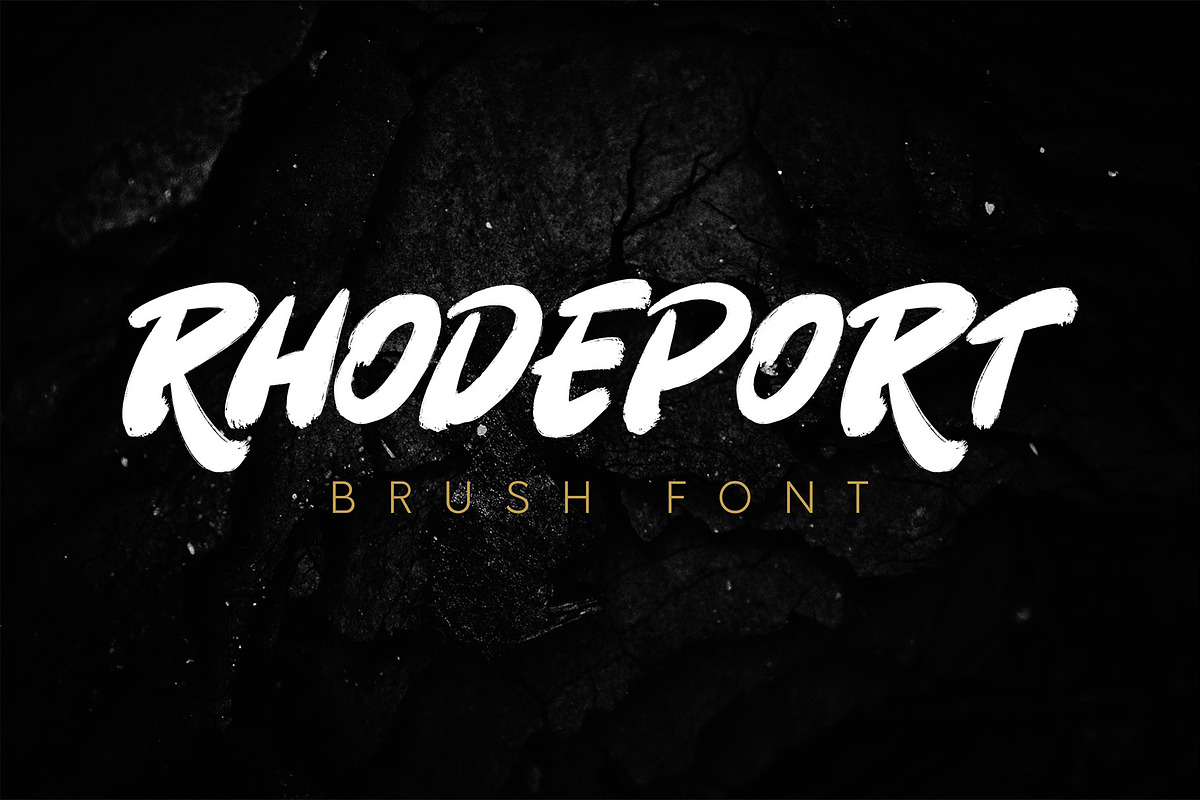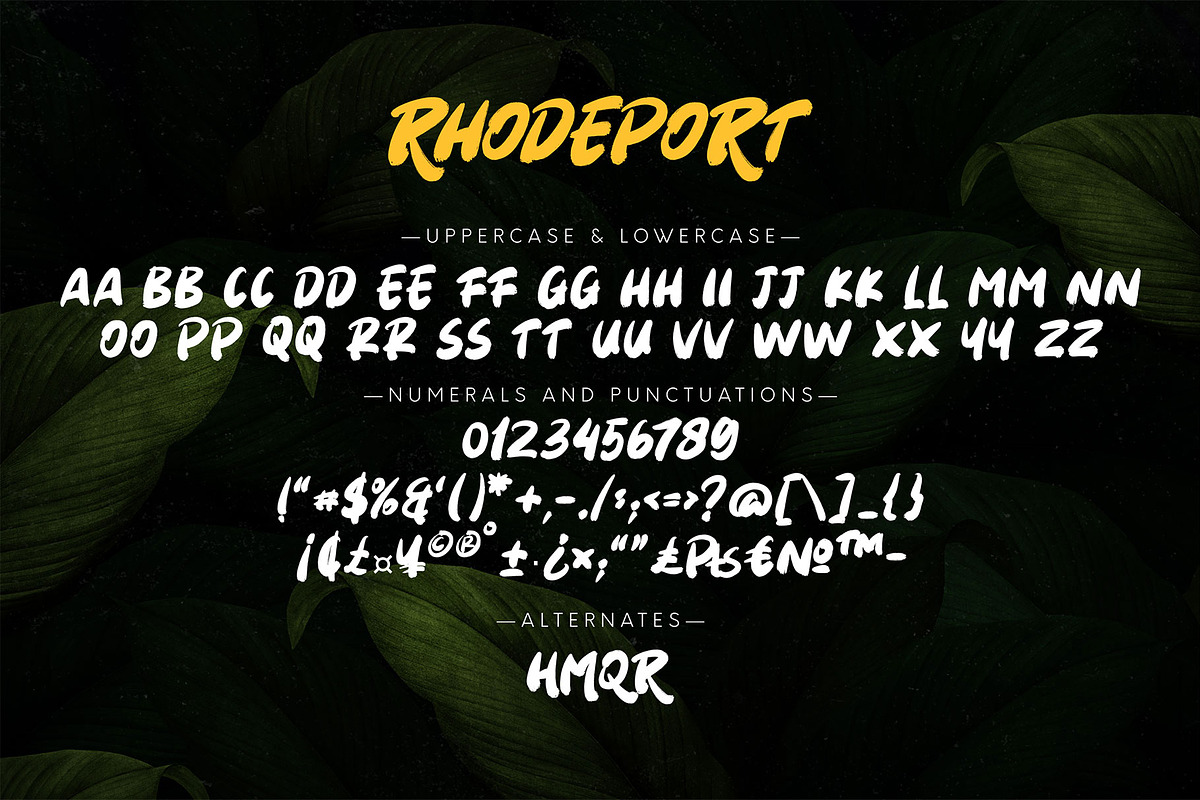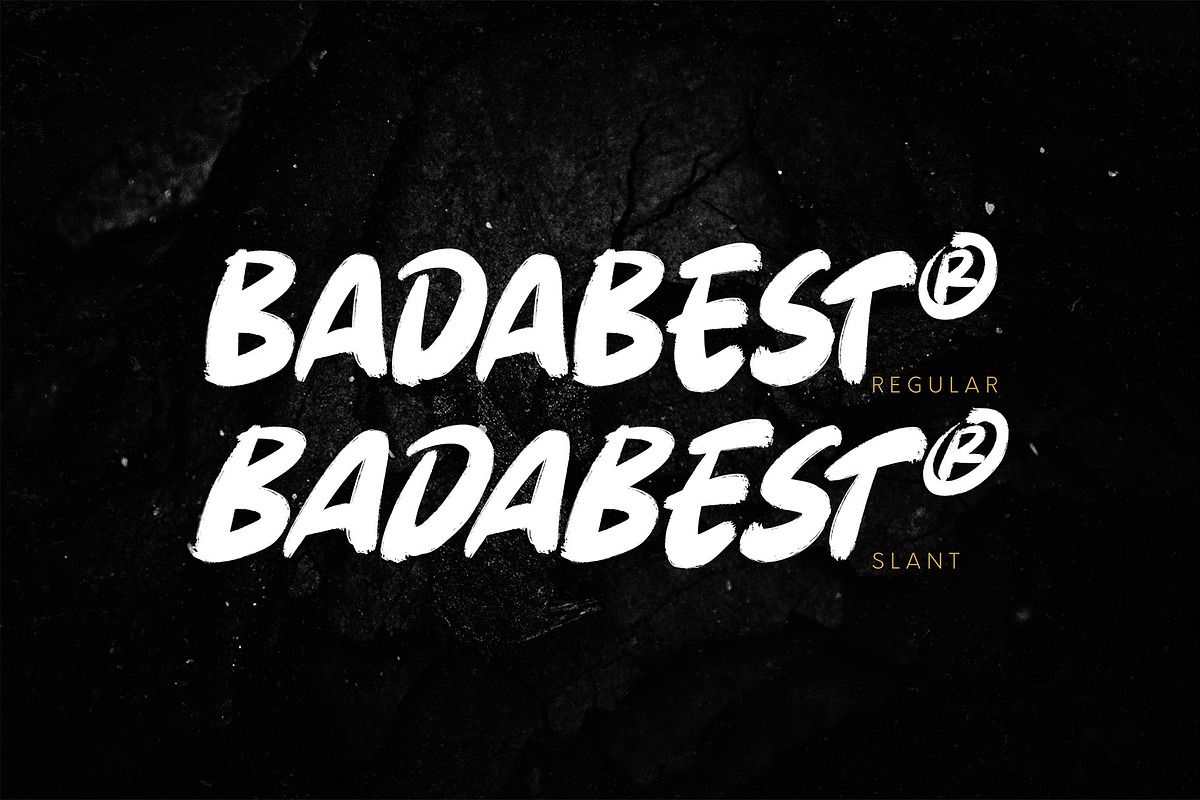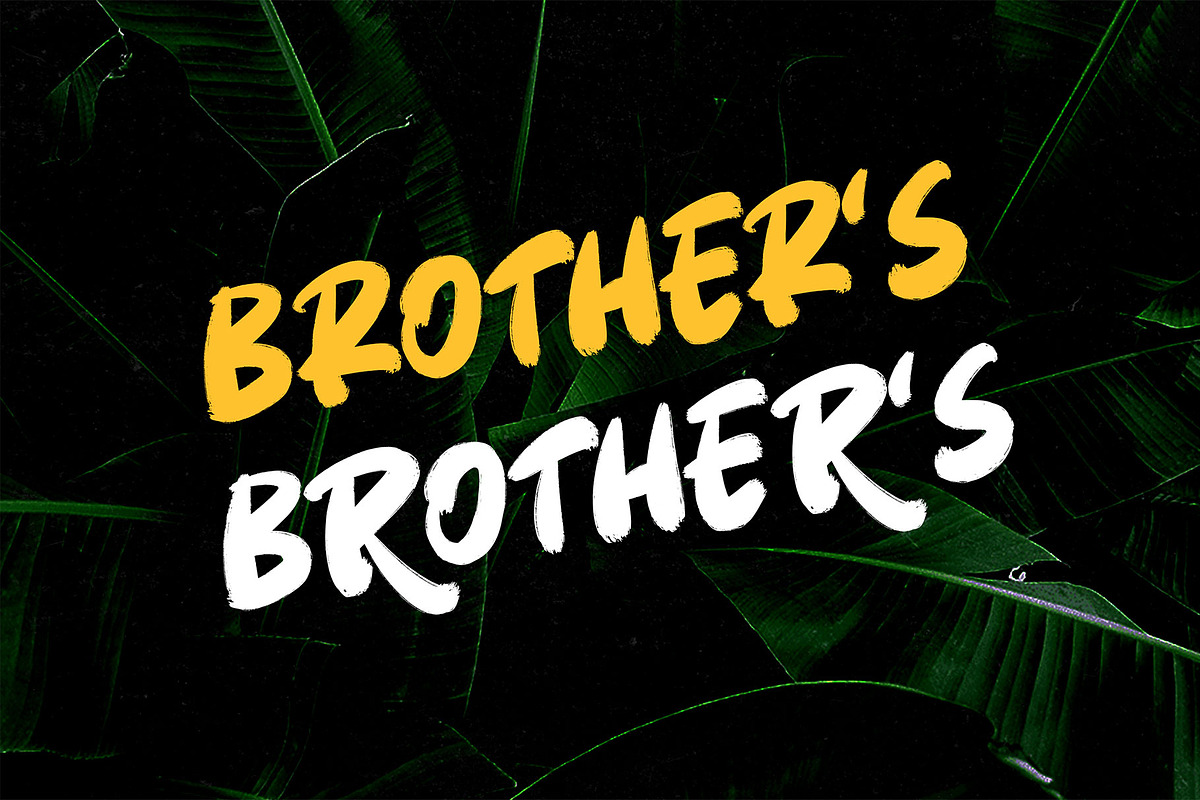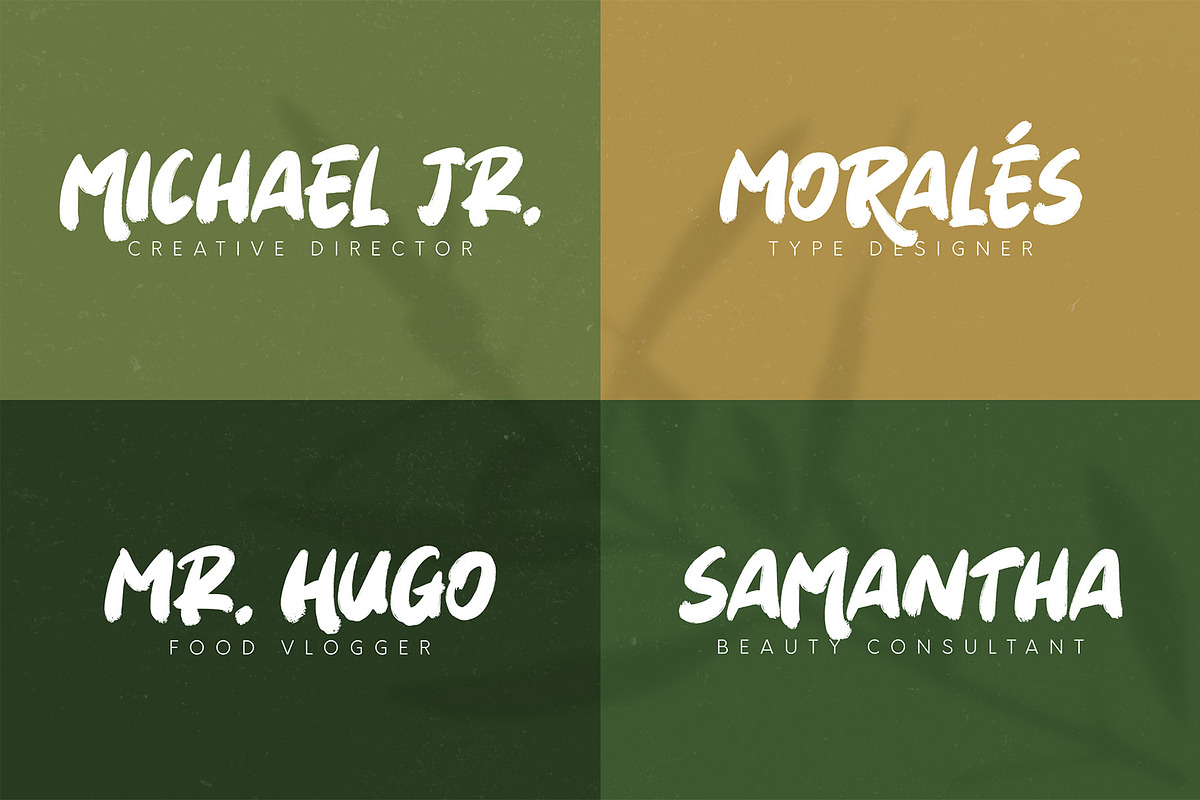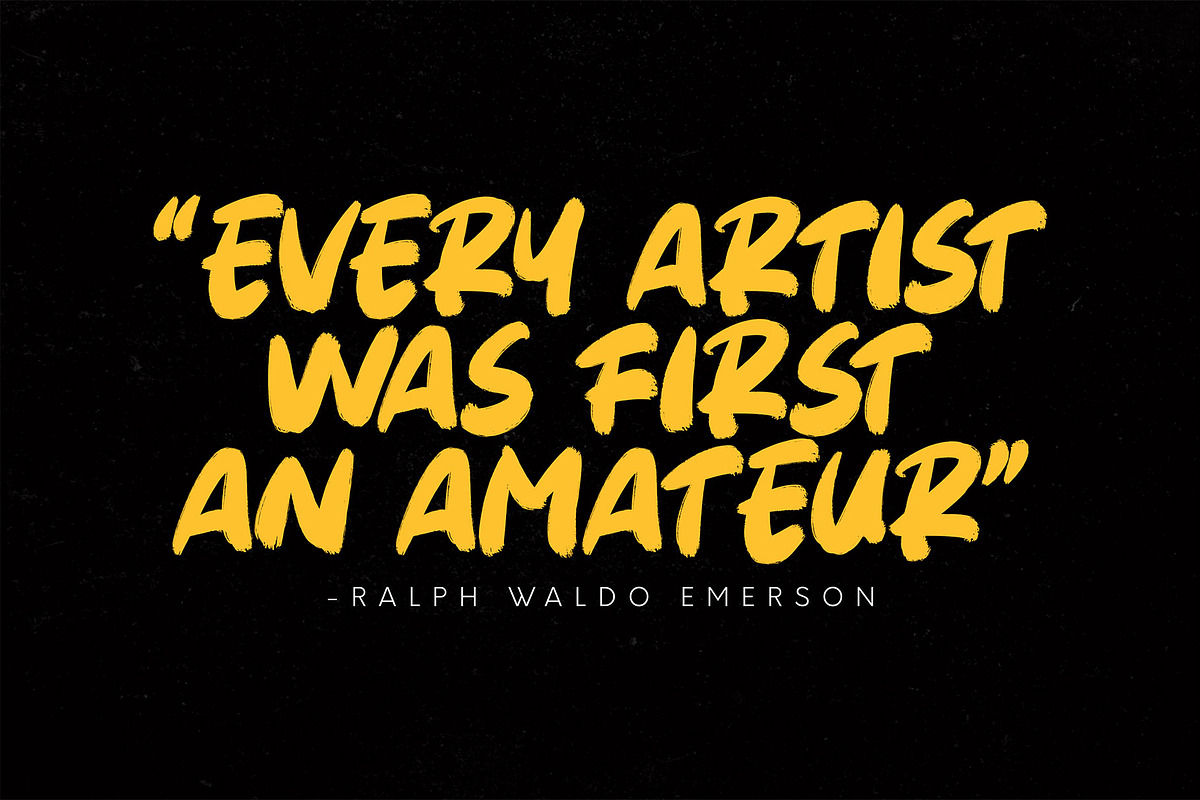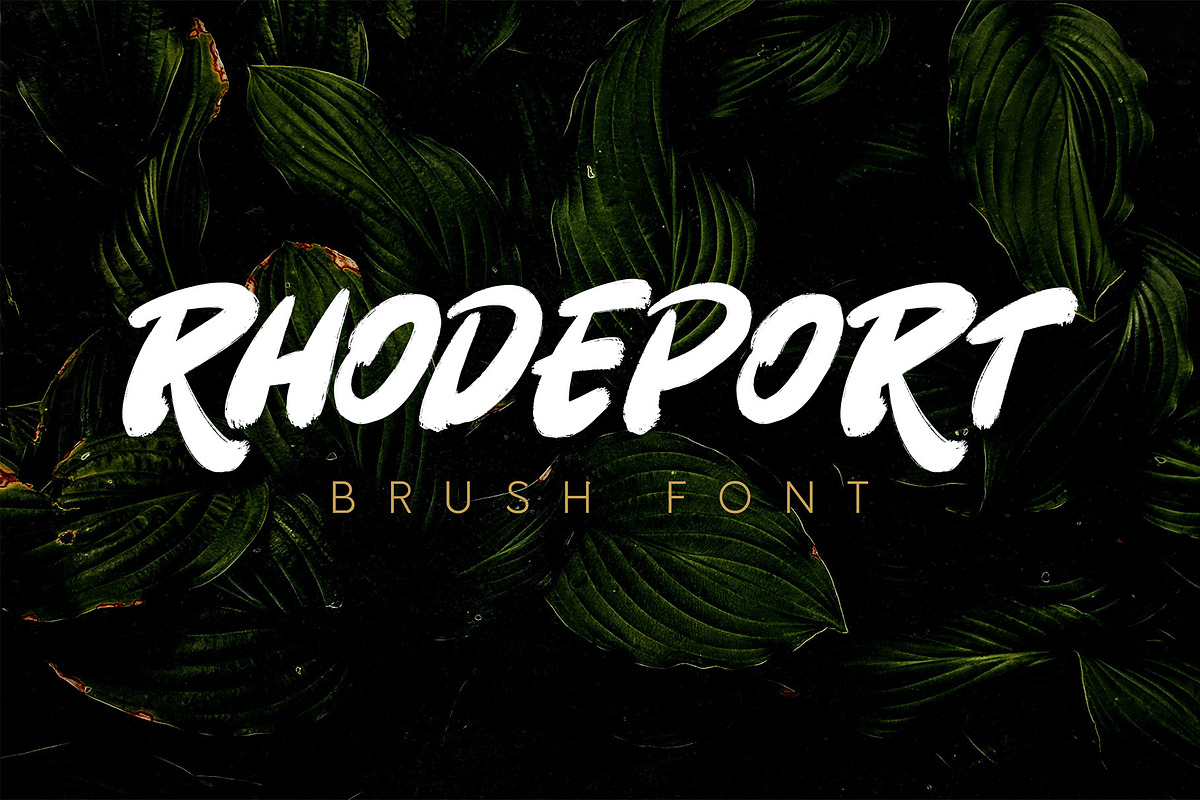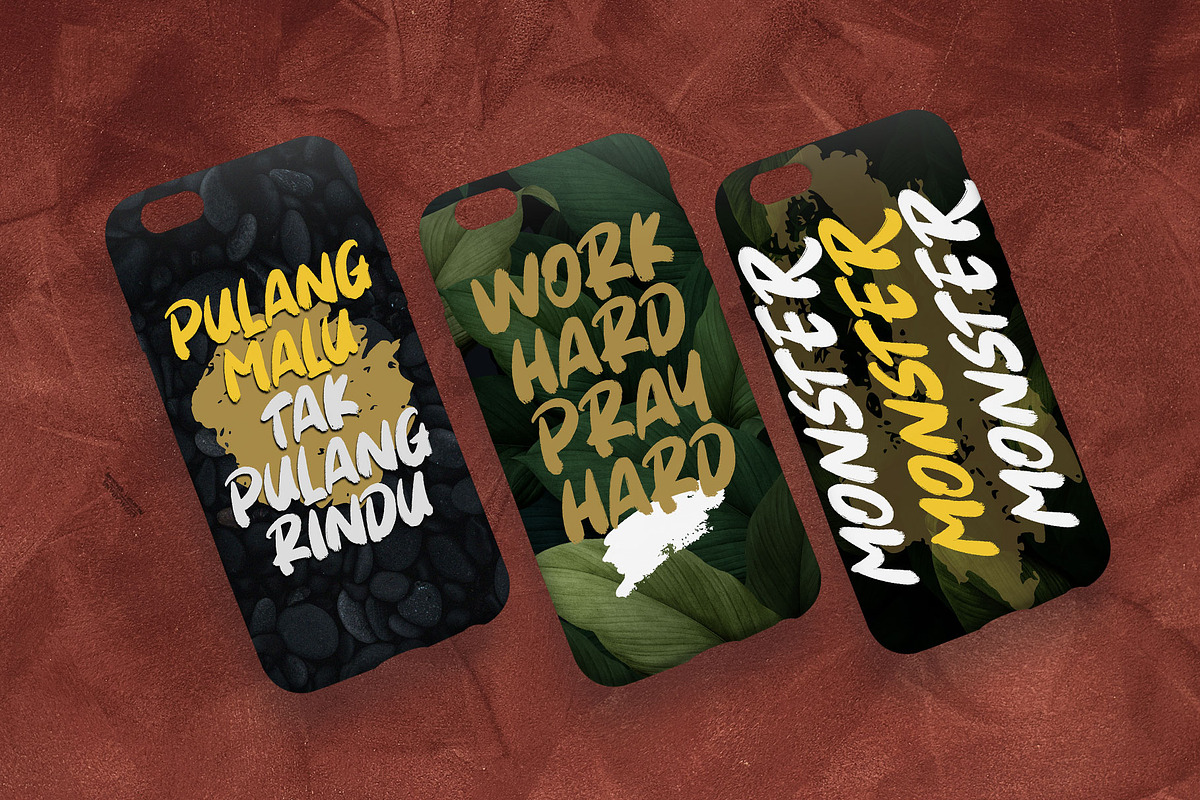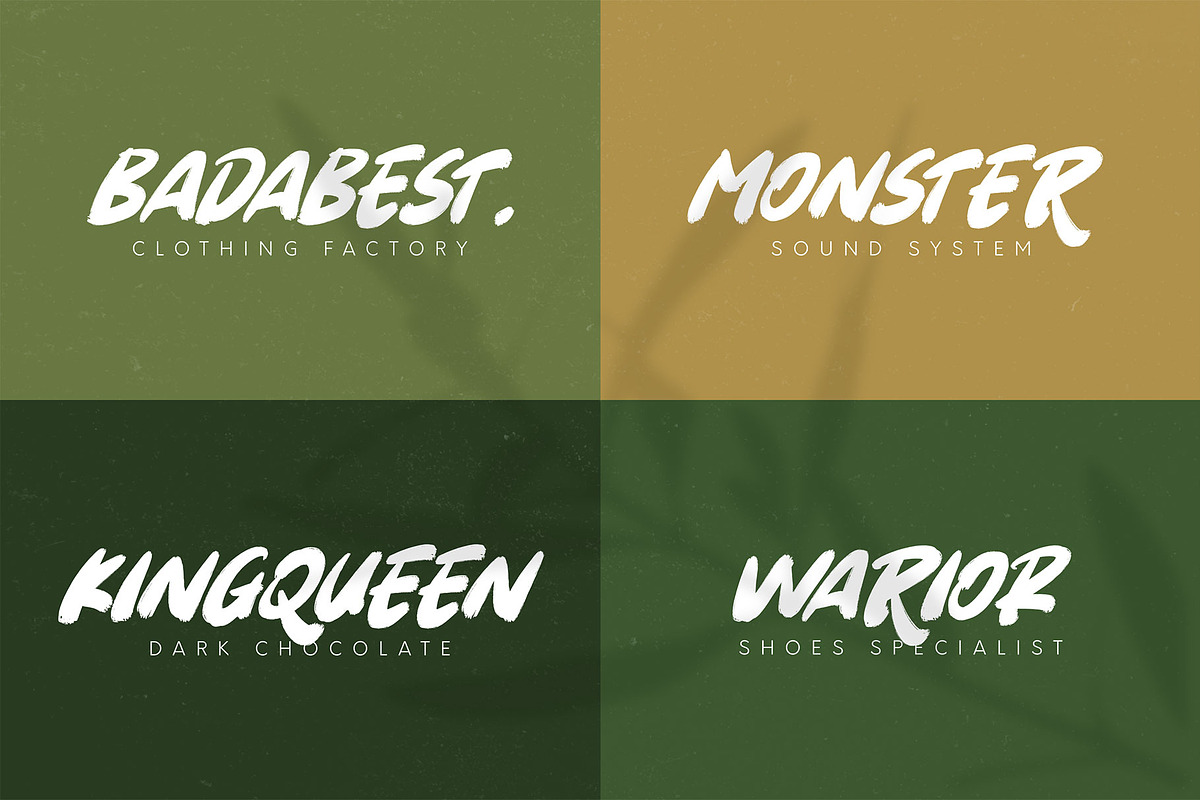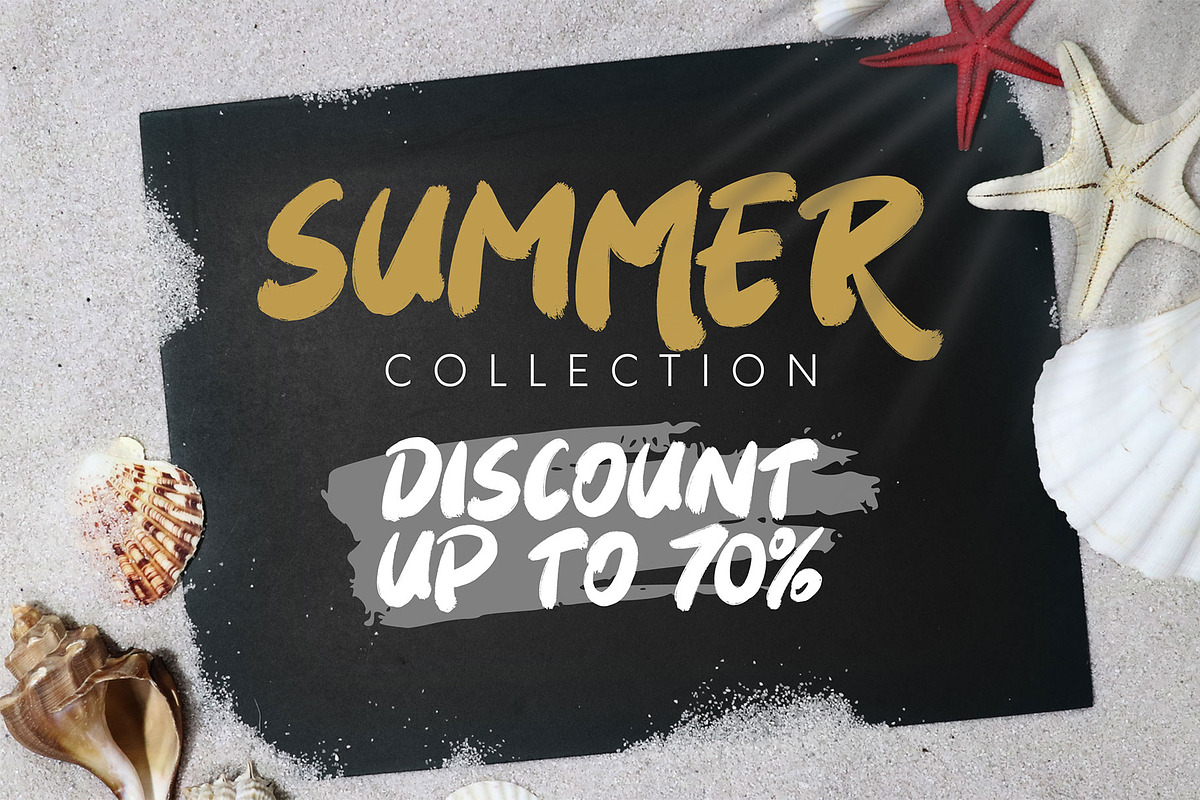
Rhodeport
Rhodeport! A handbrush font with all uppercase glyphs, regular and slant. Rhodeport font is suitable for branding, logotype, apparel, T-shirt, Hoodie, product packaging, quotes, flyer, poster, advertising, etc.
- Supports international languages
- Opentype Features: alternates